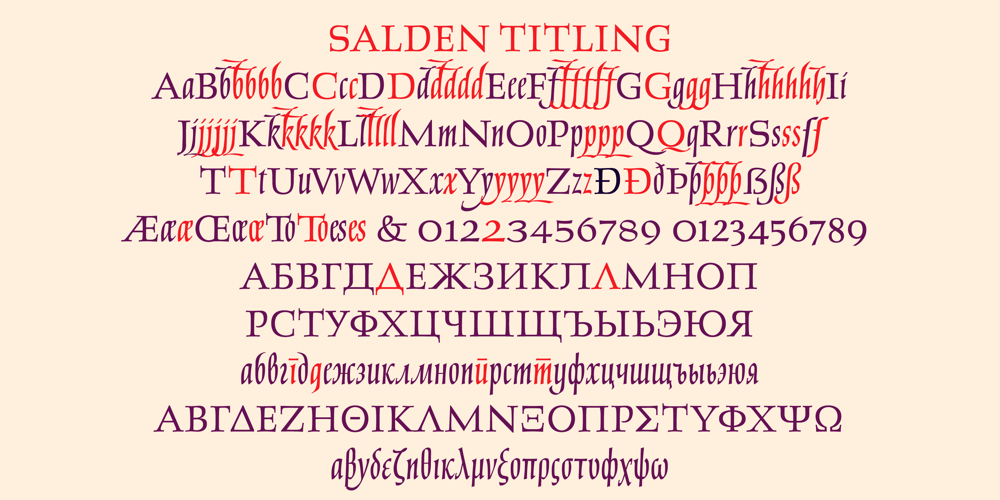
Salden Font Family was designed by Hans van Maanen, Patrick Griffin, Helmut Salden and published by Canada Type. Salden contains 6 styles and family package options. The Salden fonts are our tribute to the man who was dubbed the face of the Dutch book, and whose work is considered essential in 20th century Dutch design history. Helmut Salden’s exquisite book cover designs were the gold standard in the Netherlands for more than four decades. His influence over Dutch lettering artists and book designers ranges far and wide, and his work continues to be used commercially and exhibited to this very day. At the root of Salden’s design work was a unique eye for counter space and incredible lettering skills that never failed to awe, regardless of category or genre. This made our attention to his lettering all the more focused within our appreciation to his overall aesthetic. Though Salden never designed alphabets to be turned into typefaces (he drew sets of letters which he sometimes recycled and modified to fit various projects), we thought there was enough there to deduce what a few different typefaces by Salden would have looked like. The man was prolific, so there were certainly enough forms to guide us, and enough variation in style to push our excitement even further. And so we contacted the right people, obtained access to the relevant material, and had a lot of fun from there. This set covers the gamut of Salden’s lettering talents. Included are his famous caps, his untamed, chunky flare sans serif in two widths, his unique Roman letters and an italic companion and, most recognizable of all, his one-of-a-kind scripty upright italic lowercase shapes, which he used alongside Roman caps drawn specifically for that kind of combination titling. All the fonts in this set include Pan-European glyph sets. They’re also loaded with extras. Salden Roman (908 glyphs) and Salden Italic (976 glyphs) each come with built-in small caps (and caps-to-small-caps), quite a few ligatures, and two different sets of alternates. Salden Black and Salden Black Condensed (636 glyphs each) come with a set of alternates, and both lining and oldstyle figures. Salden Caps (597 glyphs) comes with a set of alternates, and Salden Titling (886 glyphs) comes with a quite a lot of swashed forms and alternates (including as many six variants for some forms), a few discretionary ligatures, and two sets of figures. There are also some form alternates for the Cyrillic and Greek sets included in all six fonts. These alphabets were enjoyably studied and meticulously developed over the past ten years or so. We consider ourselves very fortunate to be the ones bringing them to the world as our contribution to maintaining the legacy of a legendary talent and a great designer. The majority of the work was based on Salden’s original drawings, access to which was graciously provided by Museum Meermanno in The Hague. The Salden fonts were done in agreement with Stichting 1940-1945, and their sale will in part benefit Museum Meermanno.